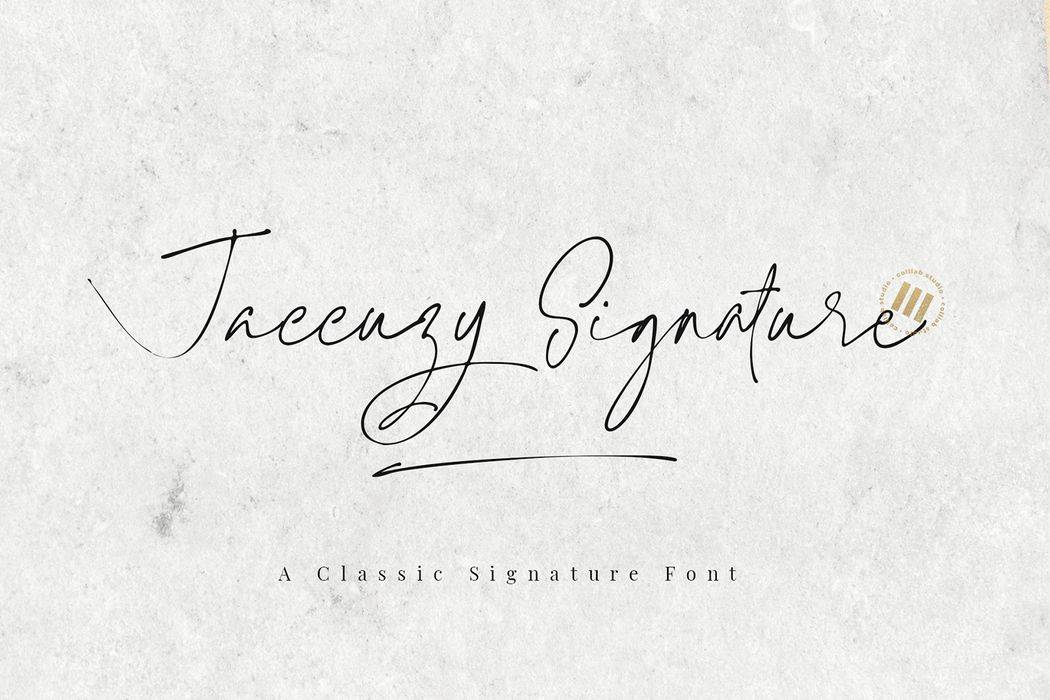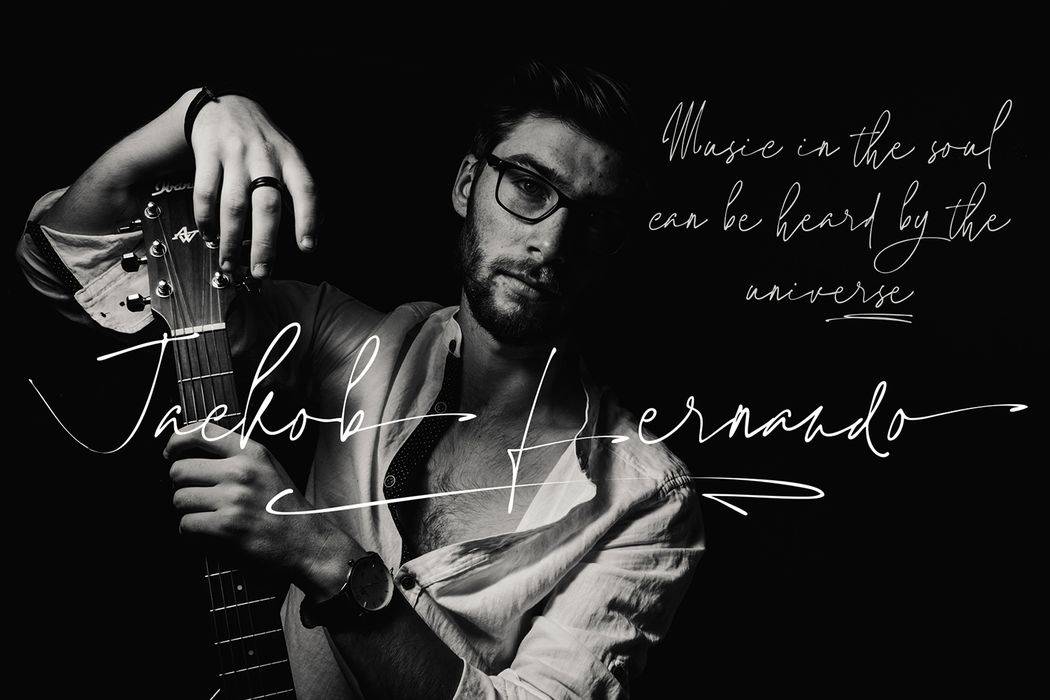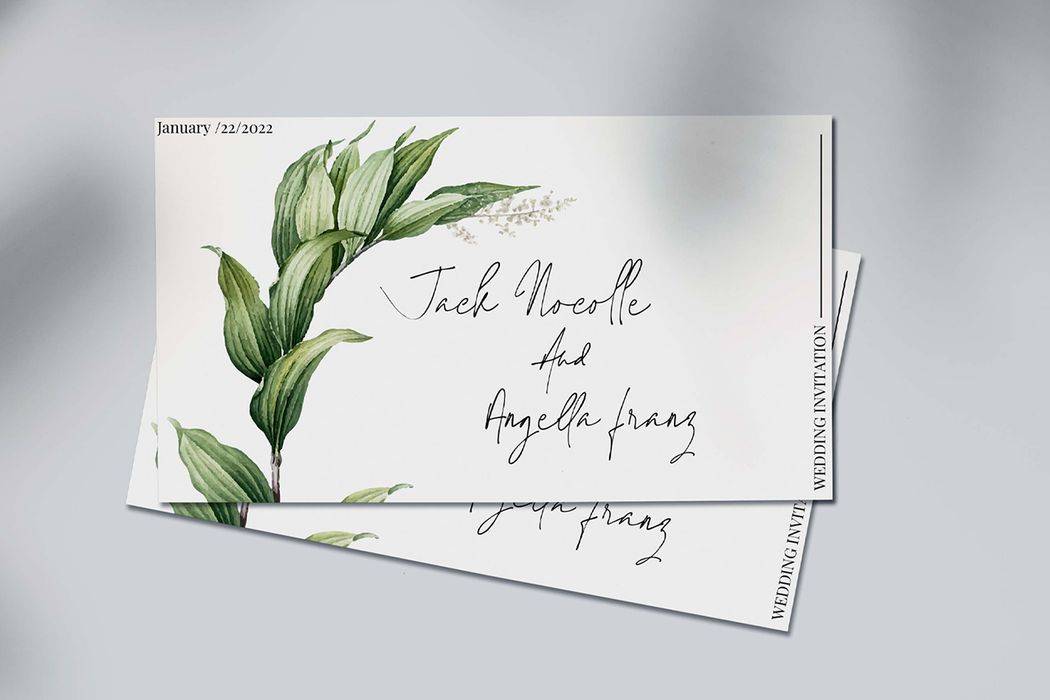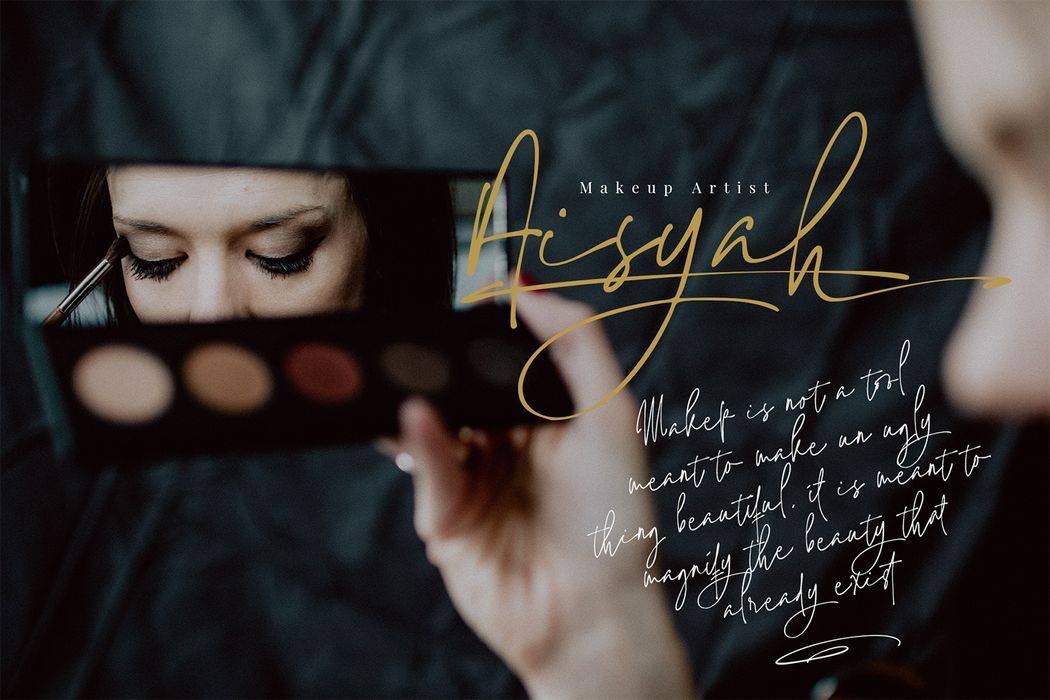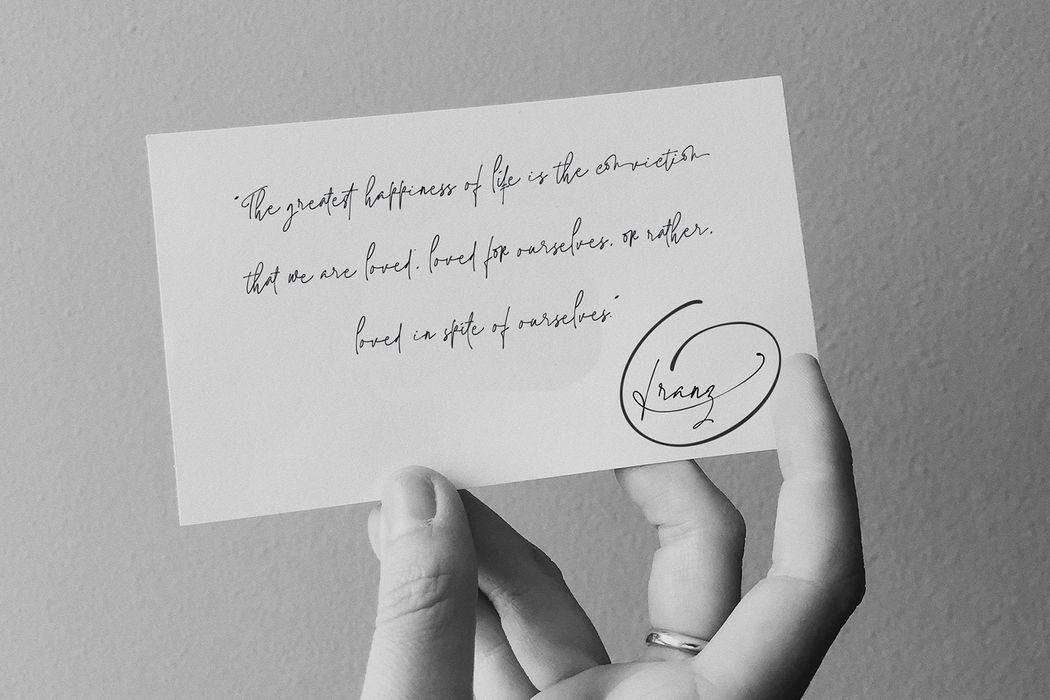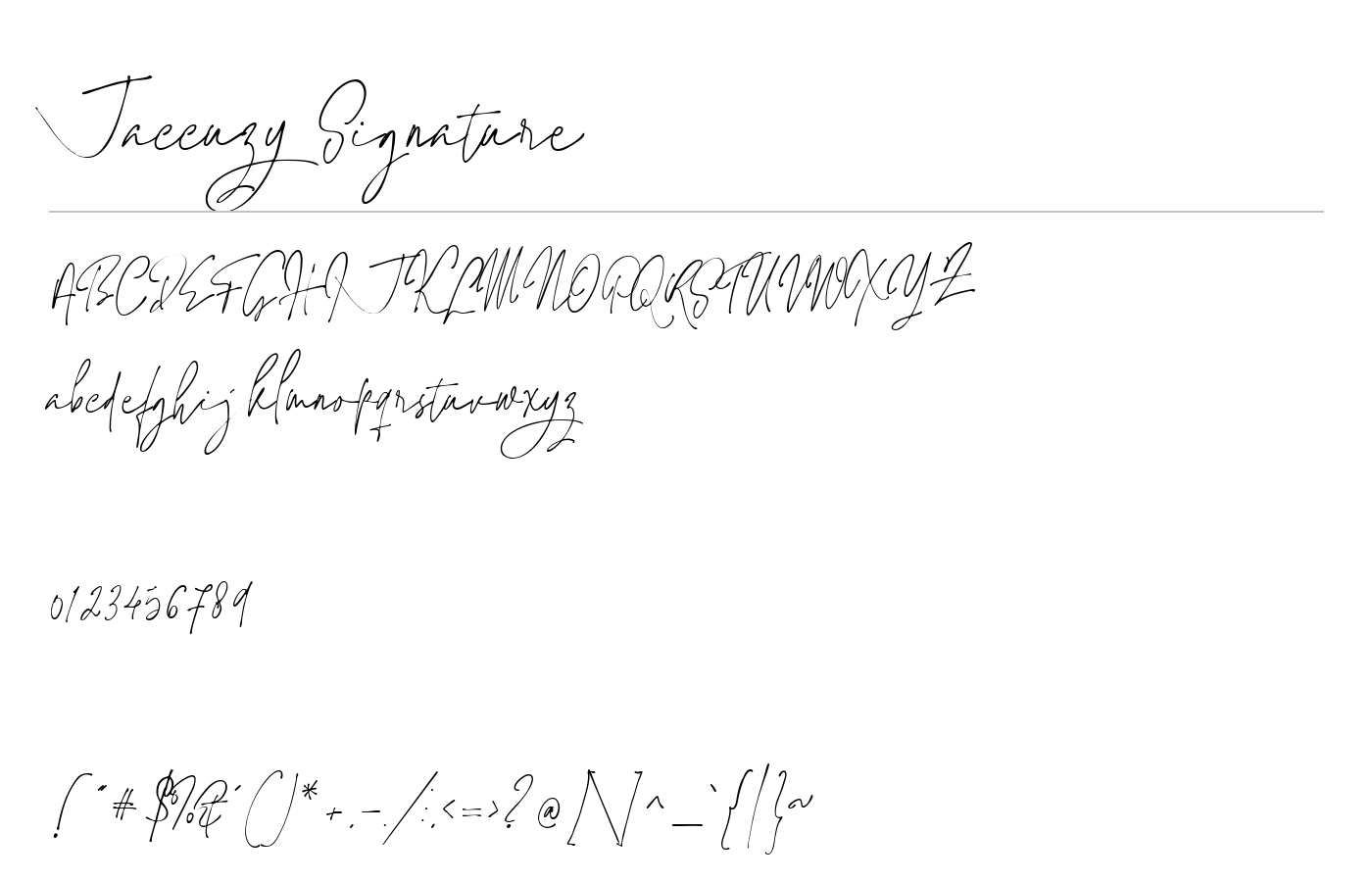
Jaccuzy Signature is a delicate, handwritten script font characterized by its thin, flowing strokes and elegant, airy letterforms that mimic natural penmanship. Its slender, slightly irregular lines convey a personal and sophisticated feel, making it perfect for branding, invitations, and any design that seeks a refined, intimate touch. This font works especially well in luxury, fashion, and creative projects where a genuine, stylish signature aesthetic is desired.
Jaccuzy Signature Font
About Jaccuzy Signature Font
| Font family | Jaccuzy Signature Font |
| Release date | 2020-08-05 |
| Designer | Didi Syarif |